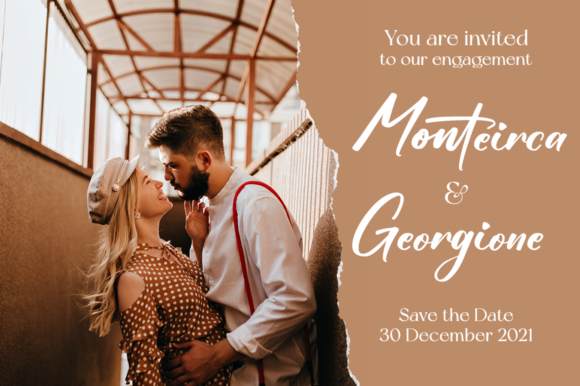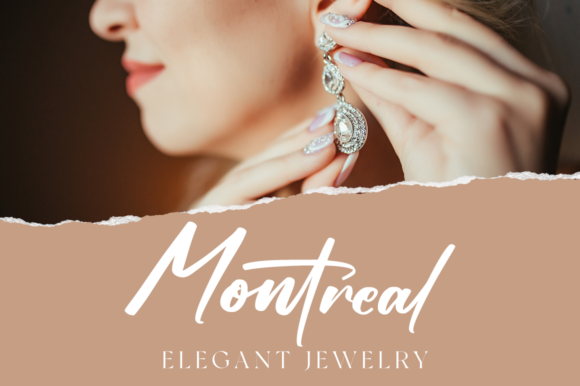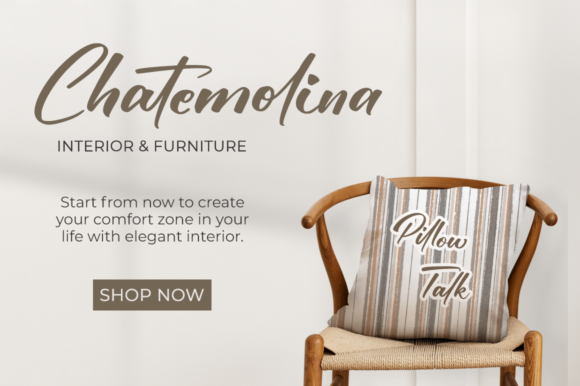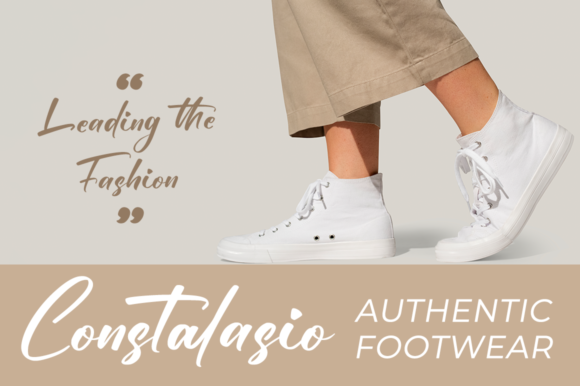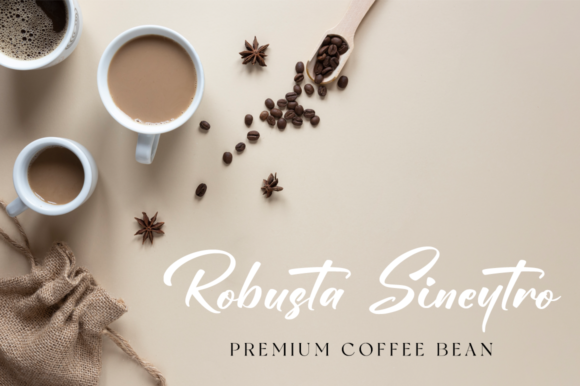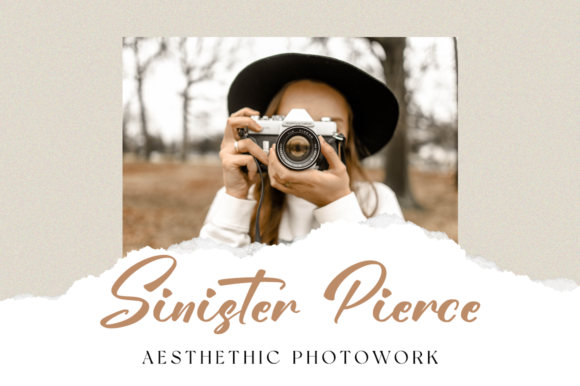
Introduction to Rollingstone Font
As you sit at your desk, surrounded by scraps of paper, paint swatches, and half-finished design projects, you’re struck with inspiration – a beautiful wedding invitation design, perhaps, or a stunning logo for a new business. The Rollingstone Font is the perfect companion to these creative moments, bringing a touch of elegance and charm to your work.
This versatile font is a valuable resource for designers, offering a range of applications from wedding invitations and thank you cards to business cards and logos. With its PUA encoded glyphs and swashes, you’ll have access to a wide range of design elements to enhance your creative project.
Key Features of Rollingstone Font
- Unique, modern design with a mix of geometric and script elements, making it perfect for creative projects.
- Designed to be versatile, making it suitable for a wide range of creative projects, from branding and advertising to editorial and publishing.
Honest Review: Rollingstone Font
- ✨ The Rollingstone Font is incredibly versatile, suitable for a wide range of creative projects, from logos to brochures.
- ✨ The font’s modern design makes it an excellent choice for contemporary designs.
- ⚠️ The font may not be suitable for very small text sizes, as it can become difficult to read.
- ⚠️ The font is not available in as many languages as I would have liked, which can be a limitation for international projects.
Tips for Getting the Most Out of Rollingstone Font
The Rollingstone Font is suitable for a wide range of creative projects, including graphic design, digital art, and typography-based designs. Its high-quality design resource and transparent background feature make it an ideal choice for designers seeking a versatile and effective font solution.
Alternatives to Rollingstone Font